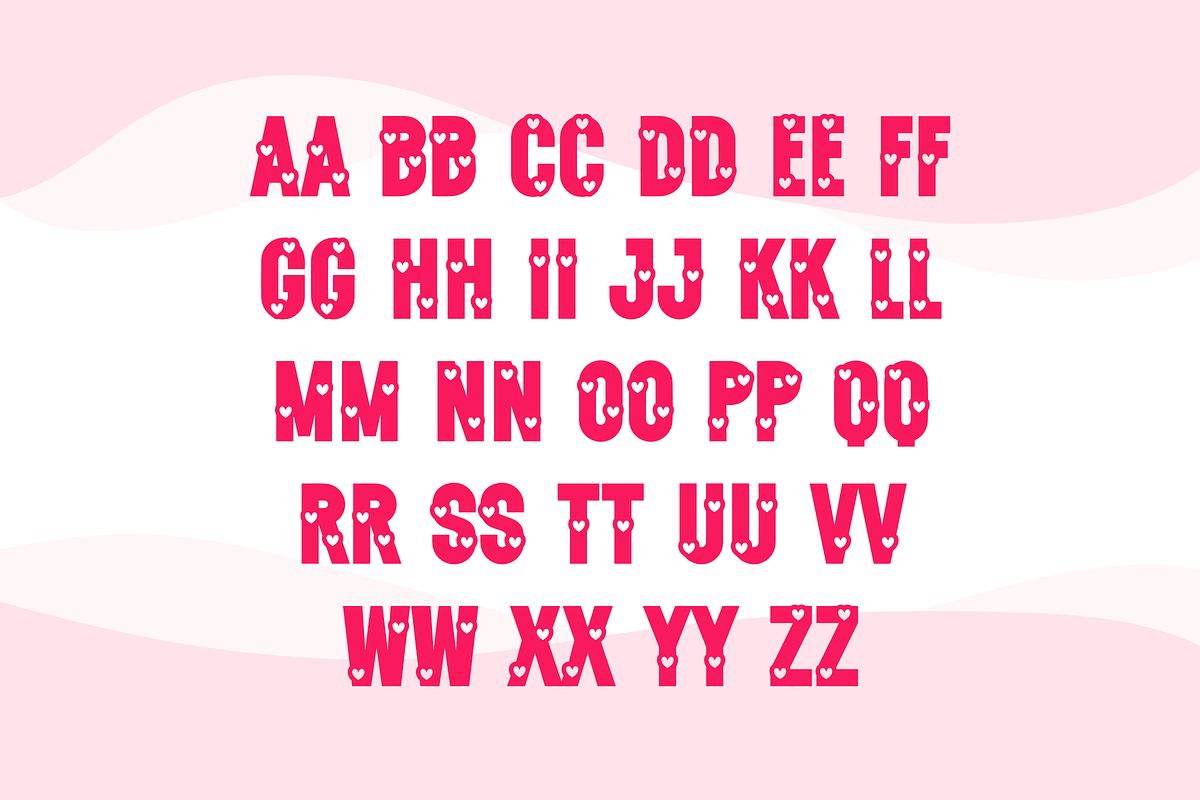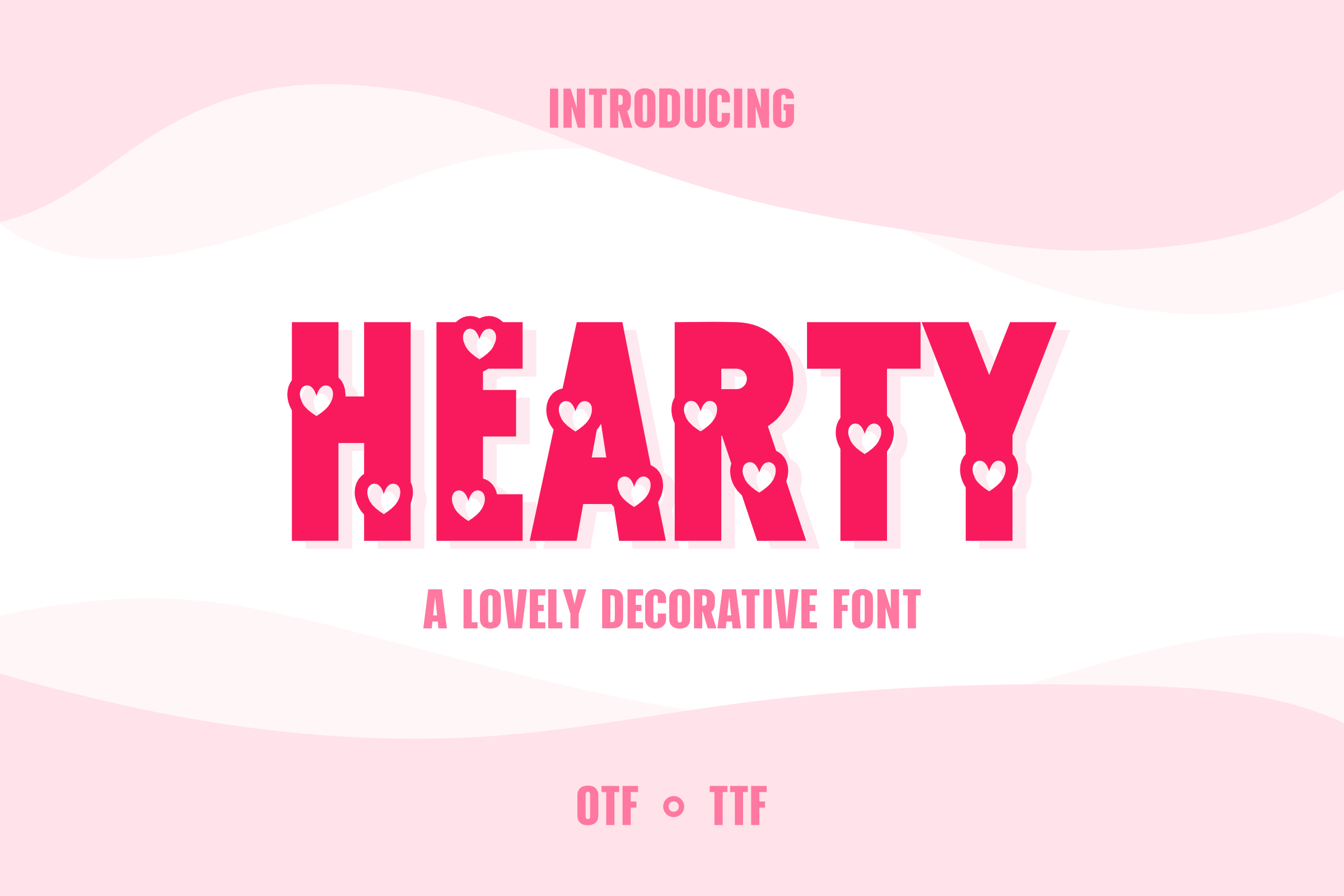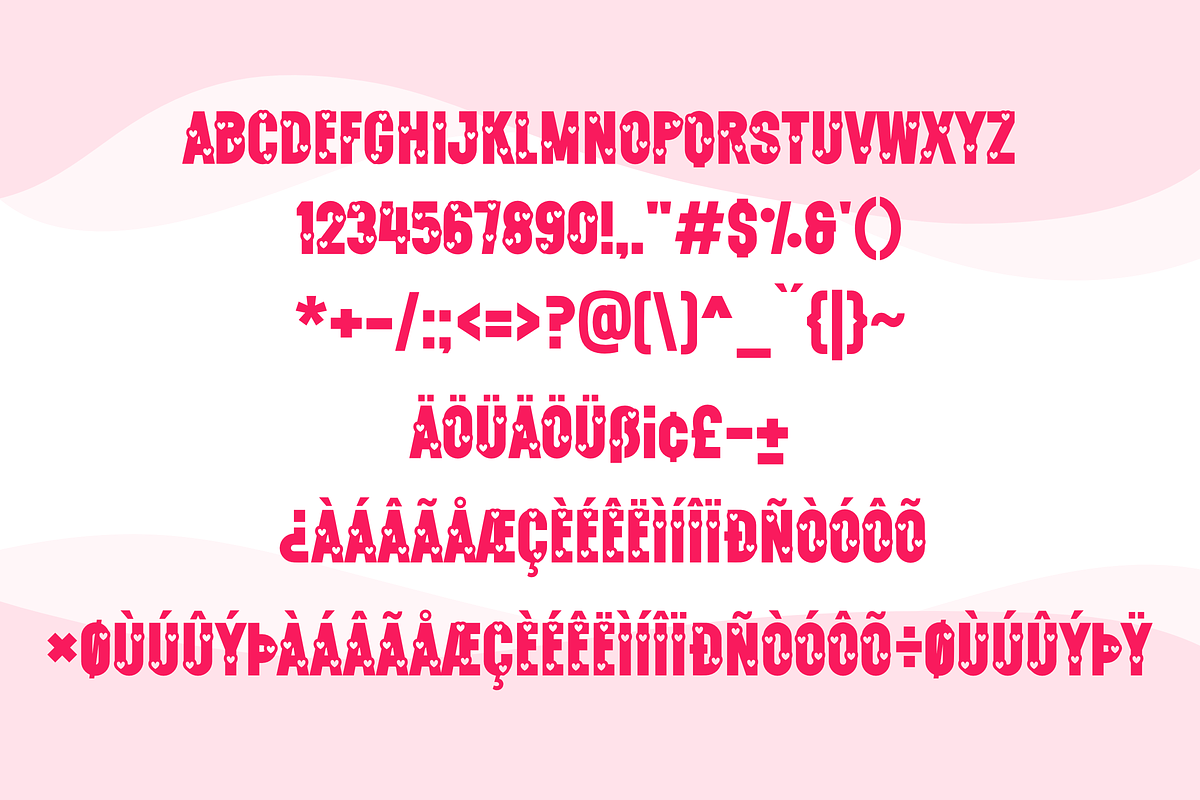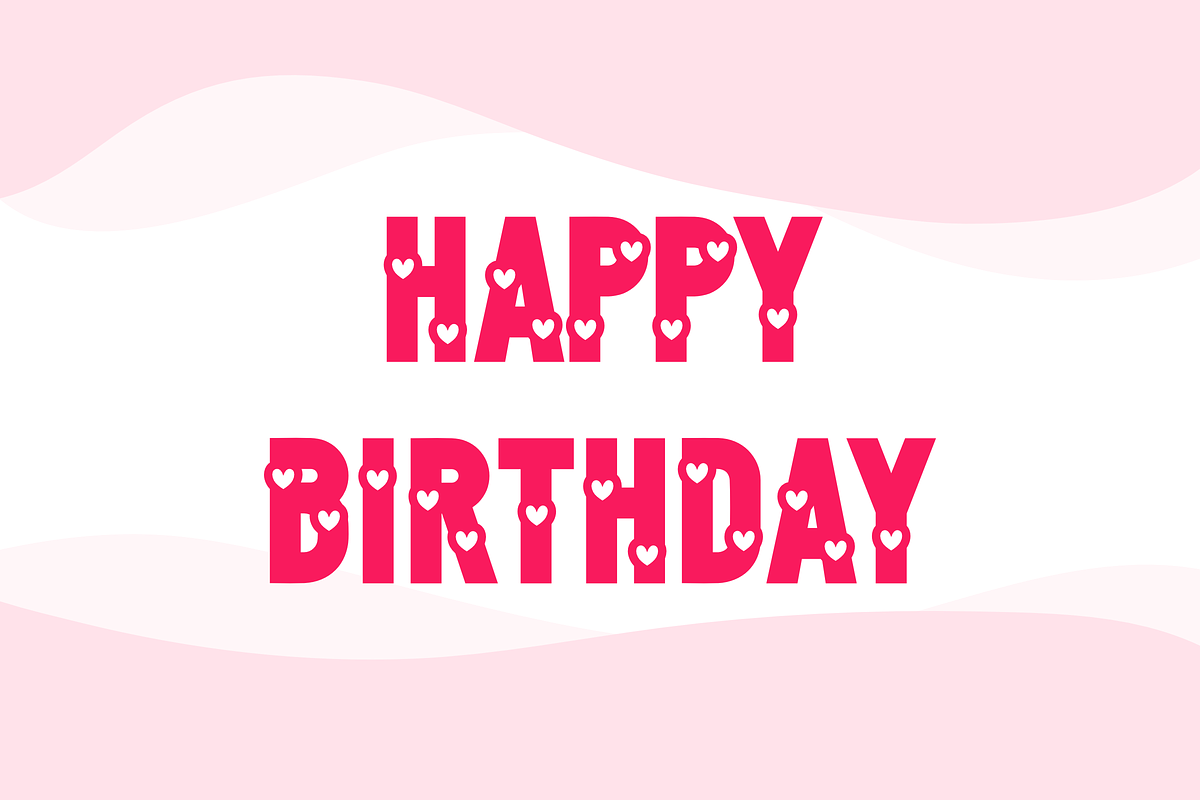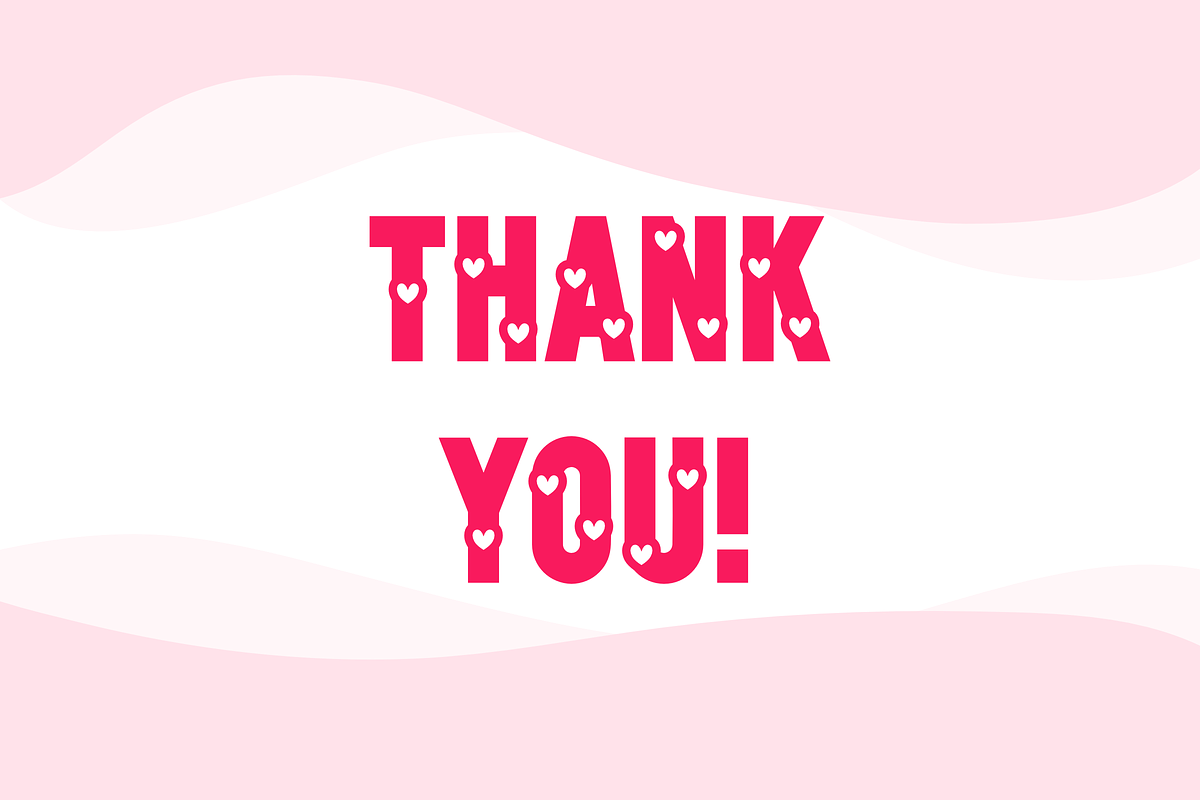
Hearty Font
Introducing the delightful charm of Hearty, an intricately decorative typeface designed to breathe life into your invitation crafting process. Transform your creations into pieces of art with its unique aesthetics, making each invitation a joy to behold. Each element of the Hearty font is designed to add a touch of elegance and sophistication to your beautiful creations. Perfect for captivation, celebration, and more— welcome to the world of Hearty font!